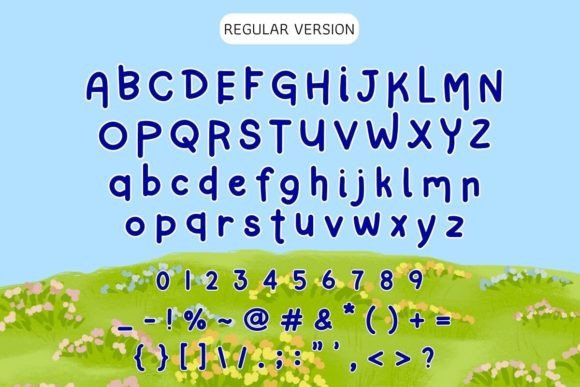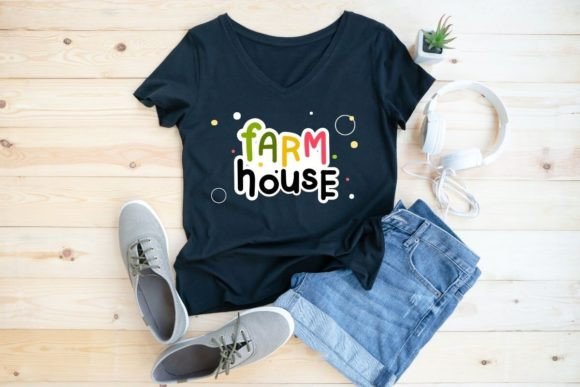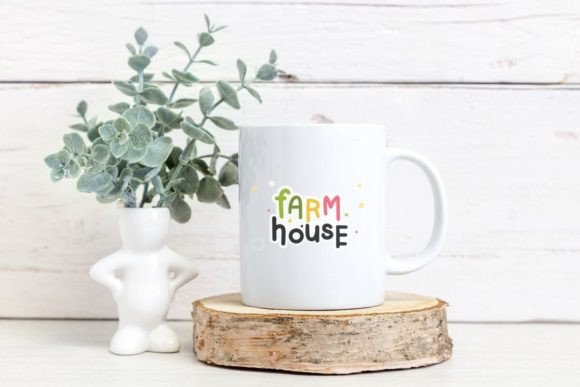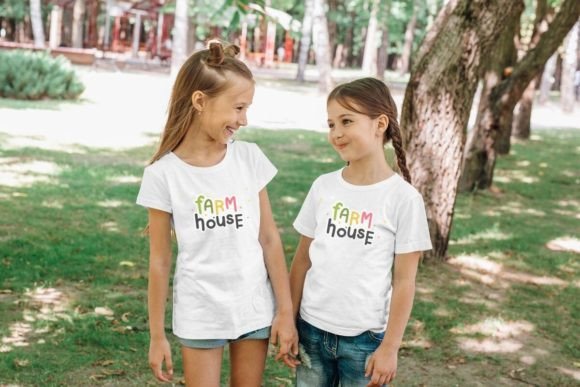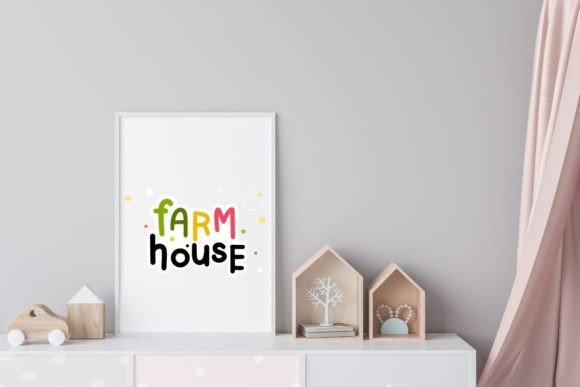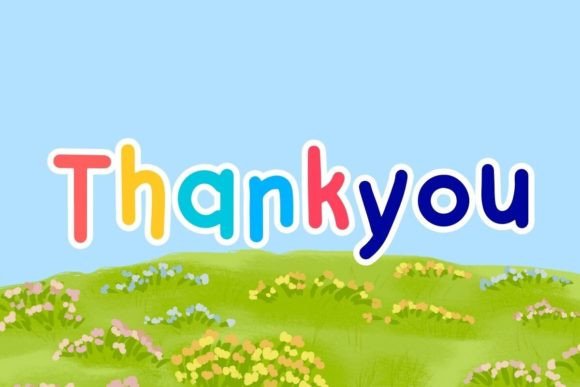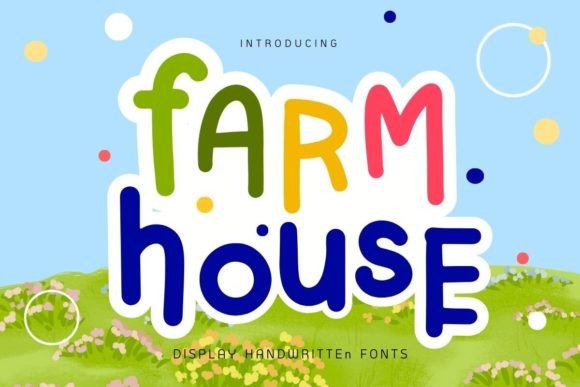
Introducing Farm House Font: The Perfect Addition to Your Design Arsenal
Are you a designer or crafter looking for a font that exudes a fun and playful vibe? Look no further than the Farm House Font! This adorable display font is specifically designed for the Farmhouse theme and is perfect for a wide range of design projects that require a cute and charming touch.
What Makes Farm House Font So Special?
Farm House Font is a unique and eye-catching font that is sure to make your designs stand out. Its groovy and fun vibes make it perfect for designs that require a playful and whimsical touch. Whether you’re working on a Farmhouse design, kids design, birthday invitation, summer design, t-shirt design, crafting project, sticker, sublimation, or any other type of design, this font is sure to be a great fit.
Key Features of Farm House Font
- Cute and Playful Design: Farm House Font features a cute and playful design that is sure to add a touch of whimsy to your designs.
- Groovy and Fun Vibes: This font exudes a groovy and fun vibe that is perfect for designs that require a playful touch.
- Perfect for Farmhouse Theme: Farm House Font is specifically designed for the Farmhouse theme, making it a great choice for designers who specialize in this style.
- Versatile: This font can be used for a wide range of design projects, including Farmhouse design, kids design, birthday invitation, summer design, t-shirt design, crafting, sticker, sublimation, and many more.
How to Use Farm House Font in Your Designs
Using Farm House Font in your designs is easy! Here are a few tips to get you started:
- Pair it with Other Fonts: Farm House Font pairs well with other fonts, so don’t be afraid to experiment with different combinations.
- Use it for Headings: This font is perfect for headings and titles, so use it to add a touch of whimsy to your designs.
- Add it to Your Design Toolkit: If you’re a designer or crafter who works on a variety of projects, consider adding Farm House Font to your design toolkit.
Benefits of Using Farm House Font
There are many benefits to using Farm House Font in your designs. Here are a few:
- Unique and Eye-Catching: Farm House Font is a unique and eye-catching font that is sure to make your designs stand out.
- Time-Saving: This font is easy to use and can save you time when working on design projects.
- Versatile: Farm House Font can be used for a wide range of design projects, making it a great addition to your design toolkit.
Who Can Benefit from Using Farm House Font?
Farm House Font is perfect for a variety of designers and crafters, including:
- Graphic Designers: Graphic designers who work on a variety of projects, including Farmhouse design, kids design, birthday invitation, summer design, t-shirt design, and more.
- Crafters: Crafters who work on projects such as crafting, sticker, sublimation, and more.
- Small Business Owners: Small business owners who want to add a personal touch to their branding and marketing materials.
Farm House Font is a unique and eye-catching font that is perfect for designers and crafters who want to add a touch of whimsy to their designs. With its cute and playful design, groovy and fun vibes, and versatility, this font is sure to be a great addition to your design toolkit. Whether you’re working on a Farmhouse design, kids design, birthday invitation, summer design, t-shirt design, crafting project, sticker, sublimation, or any other type of design, Farm House Font is sure to be a great fit.